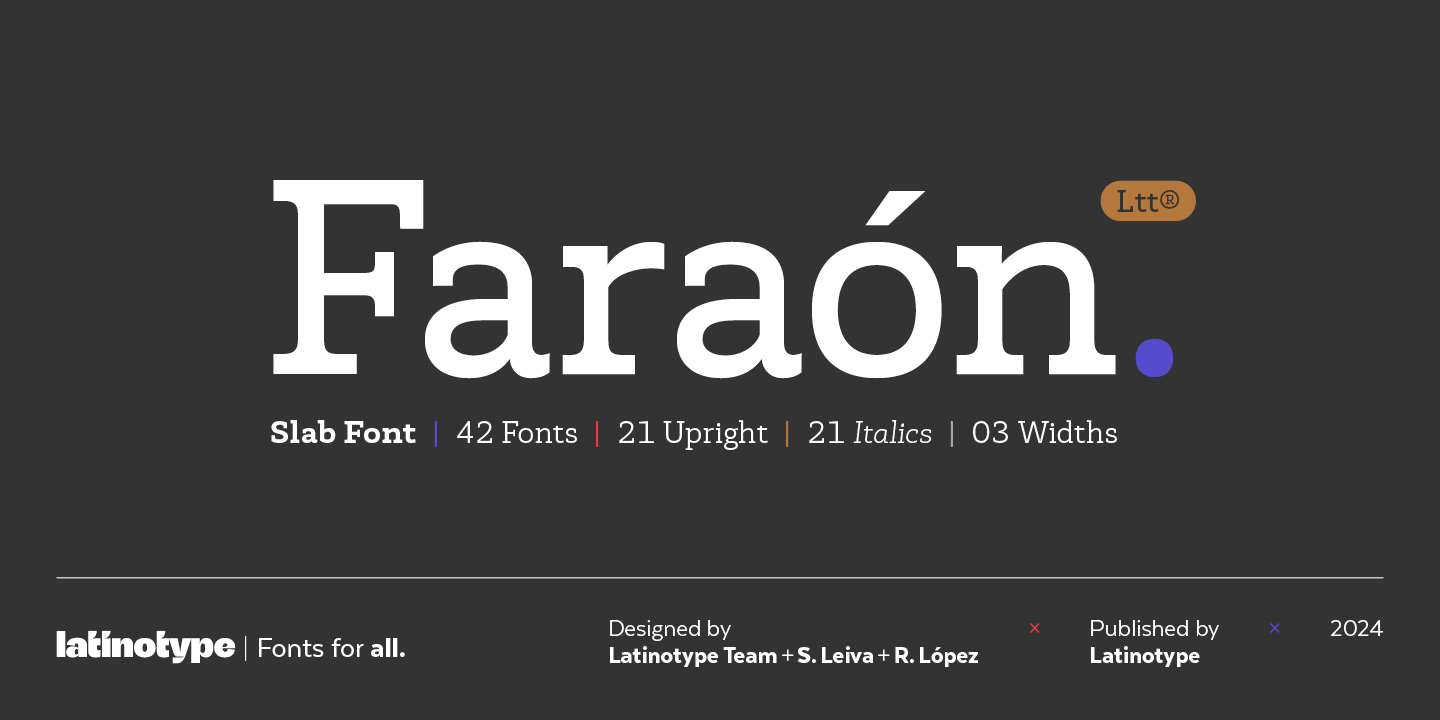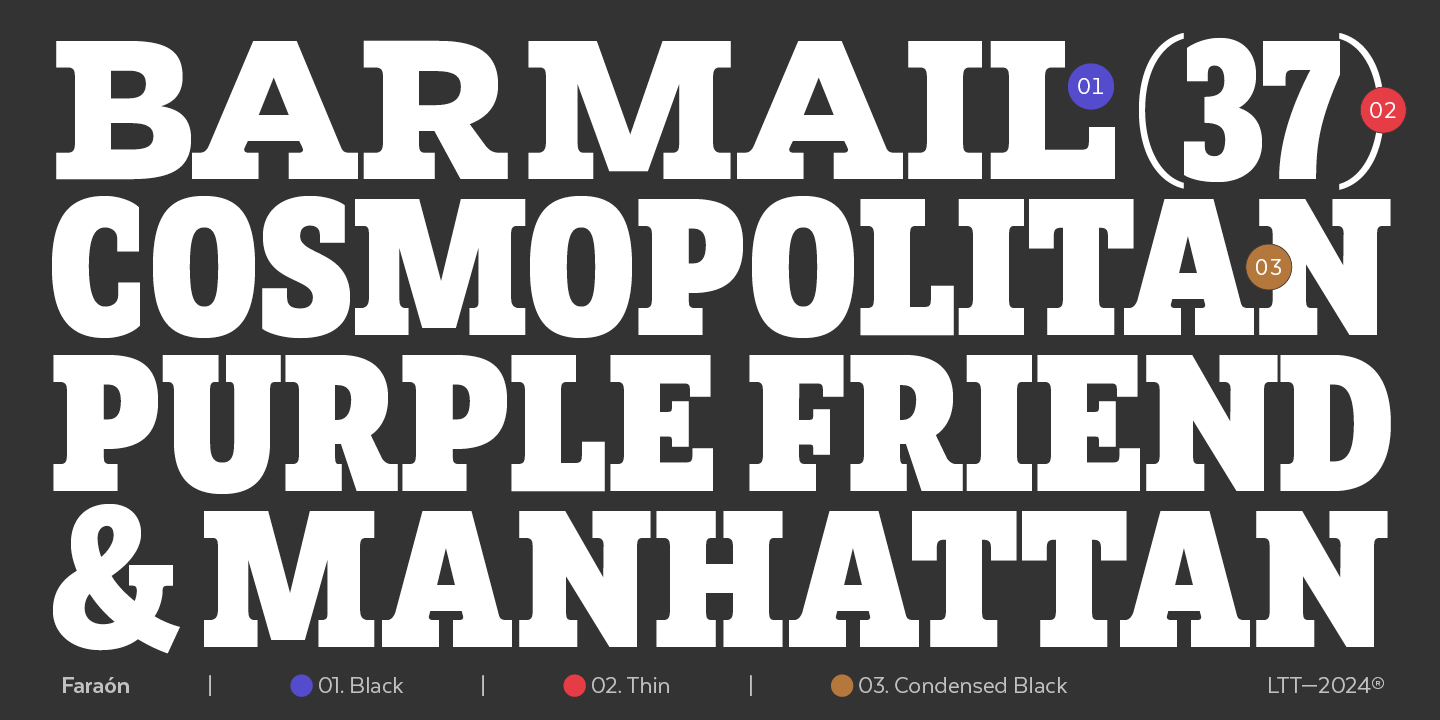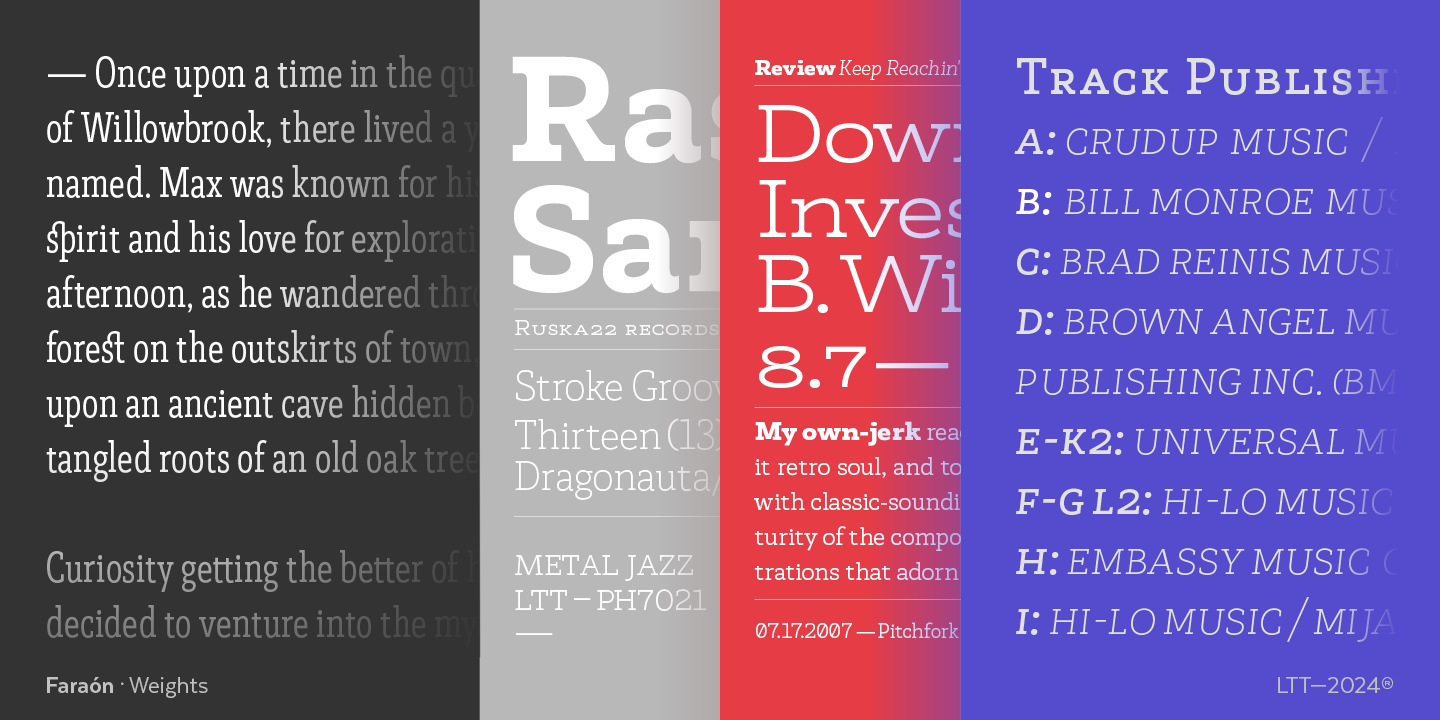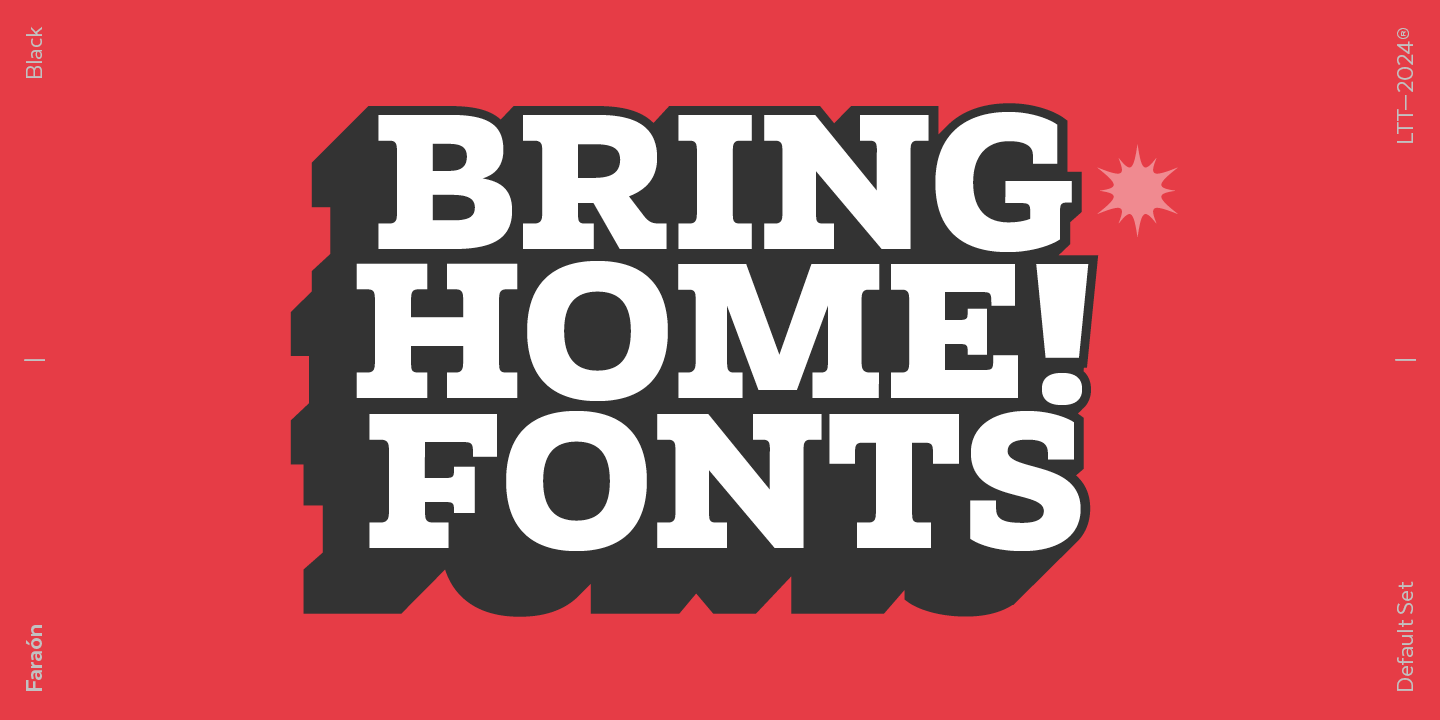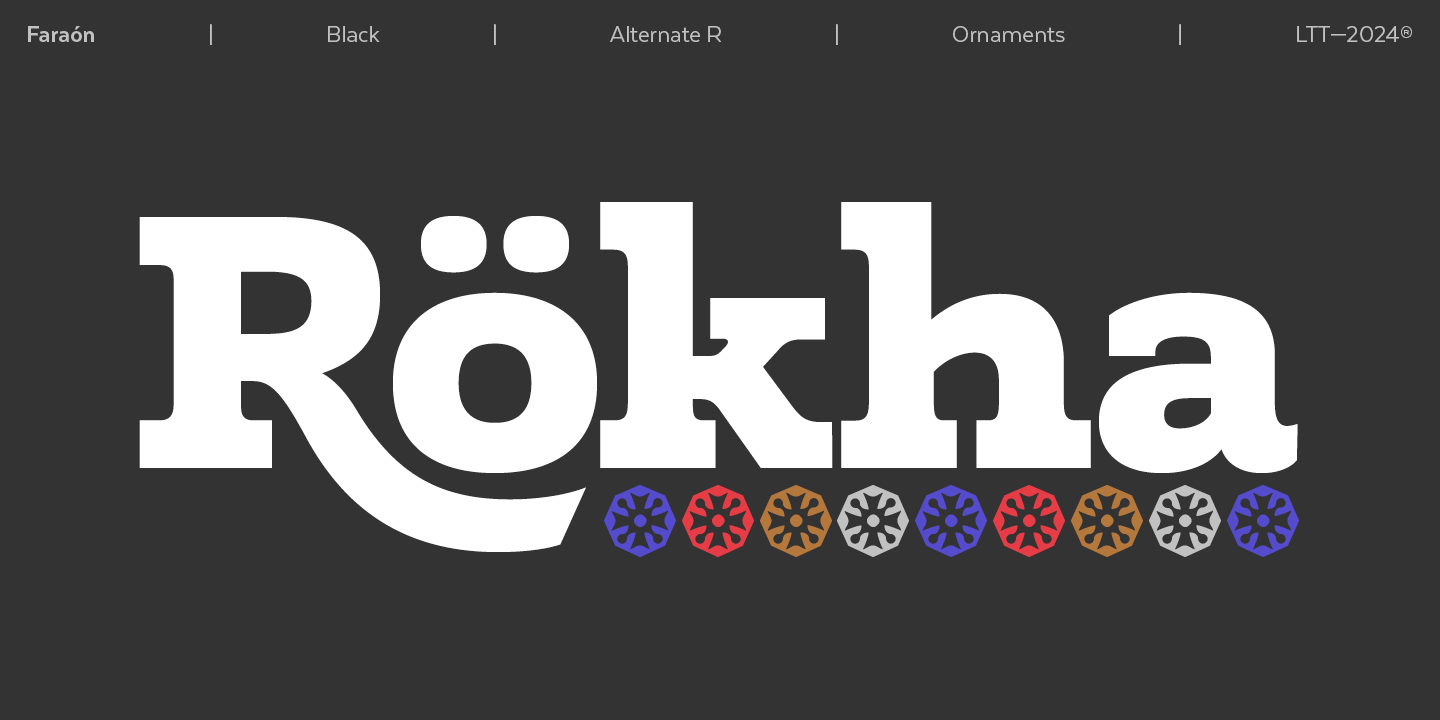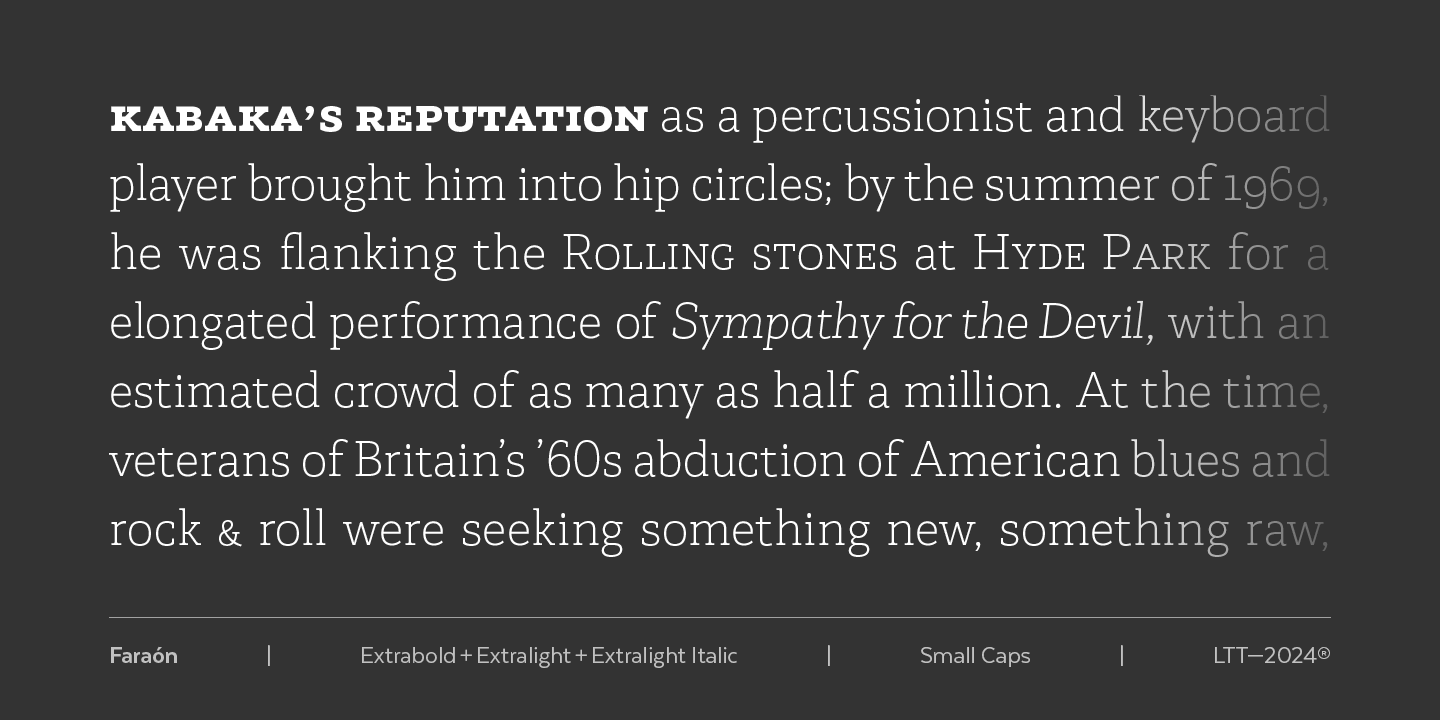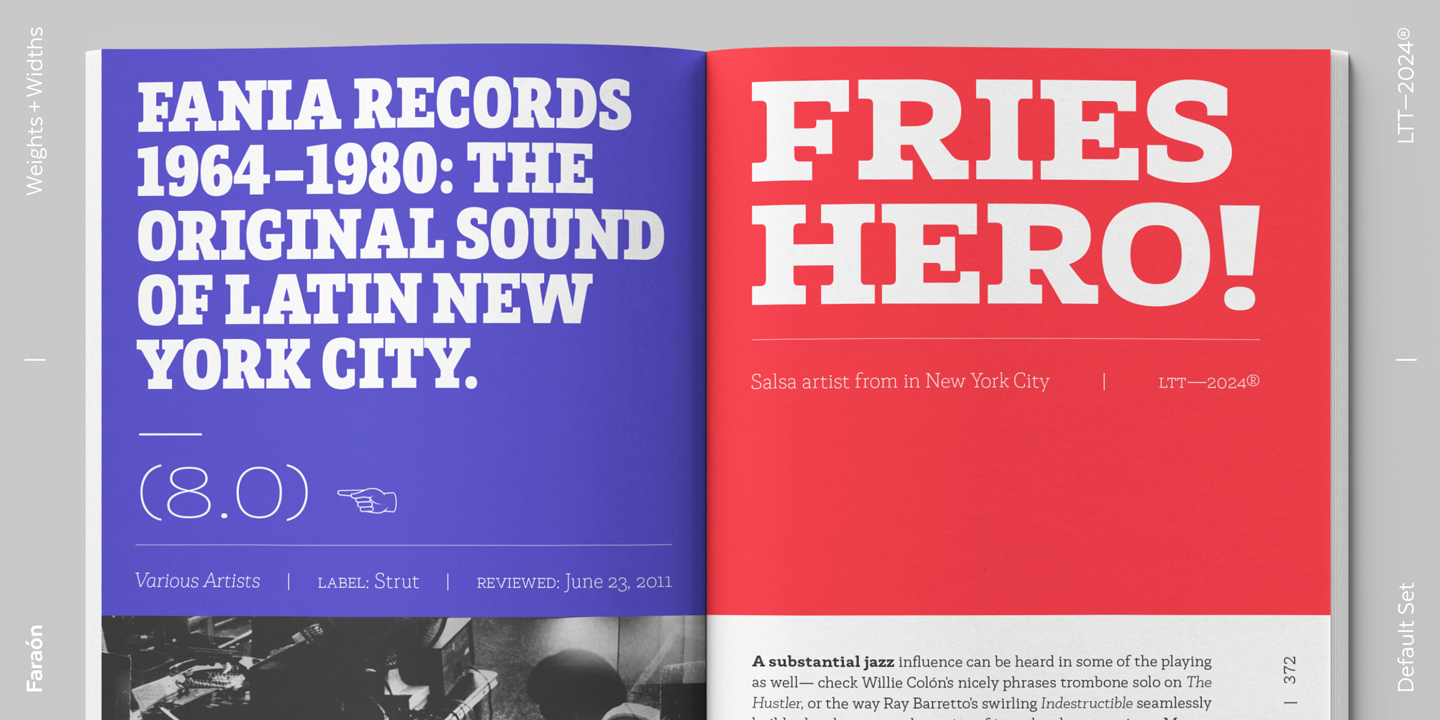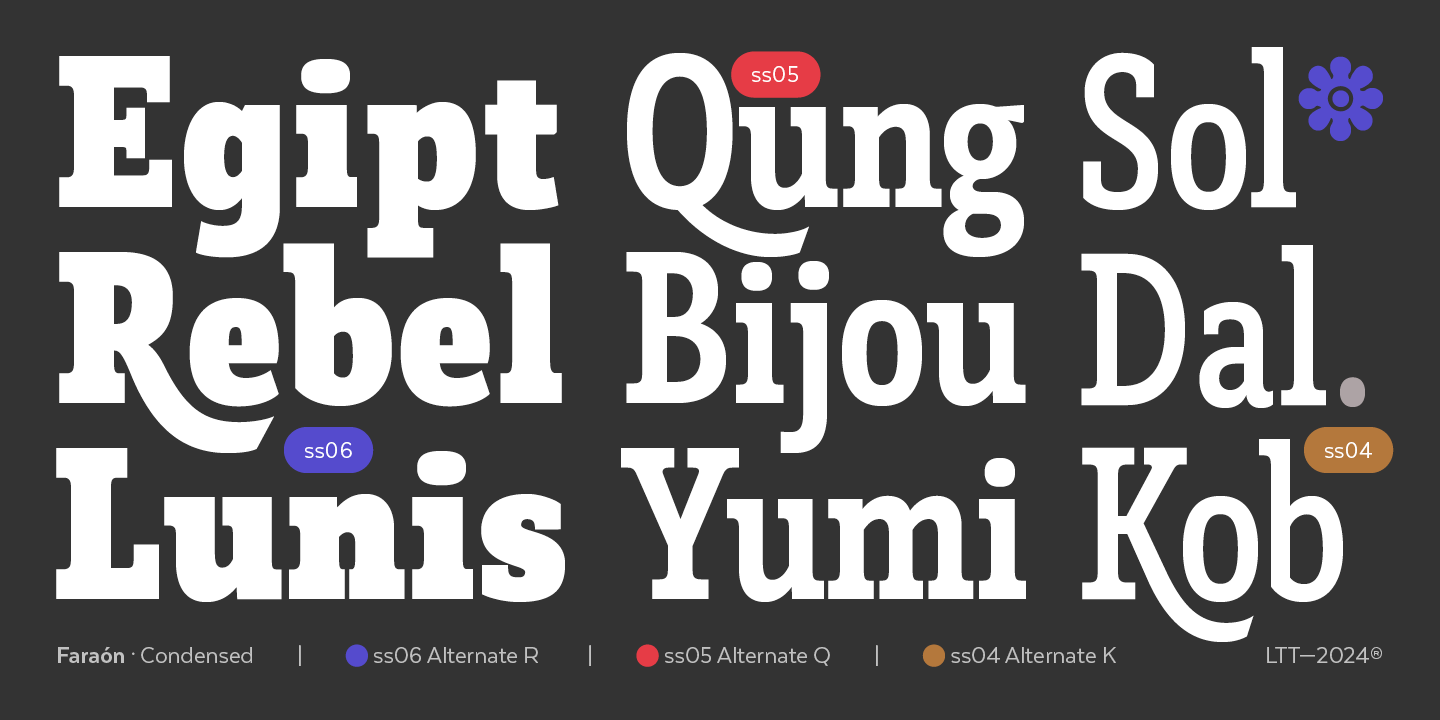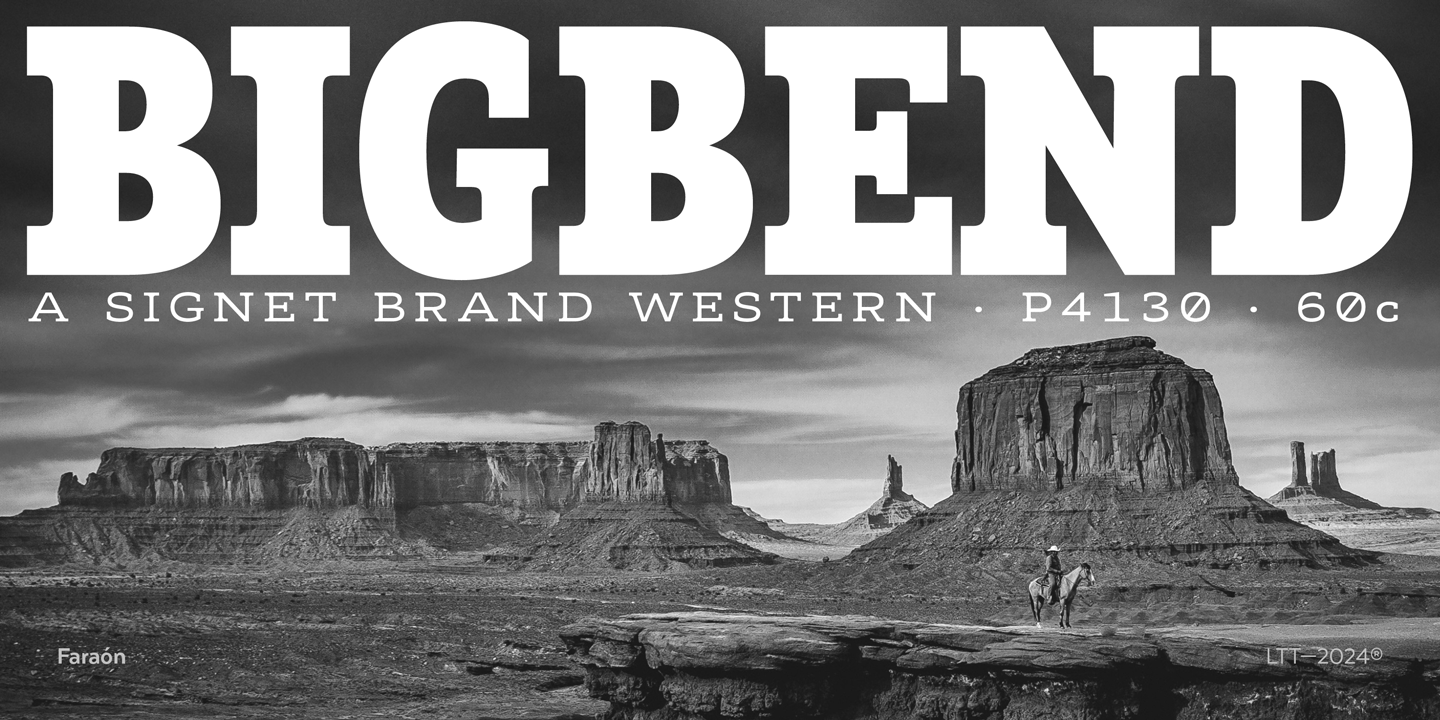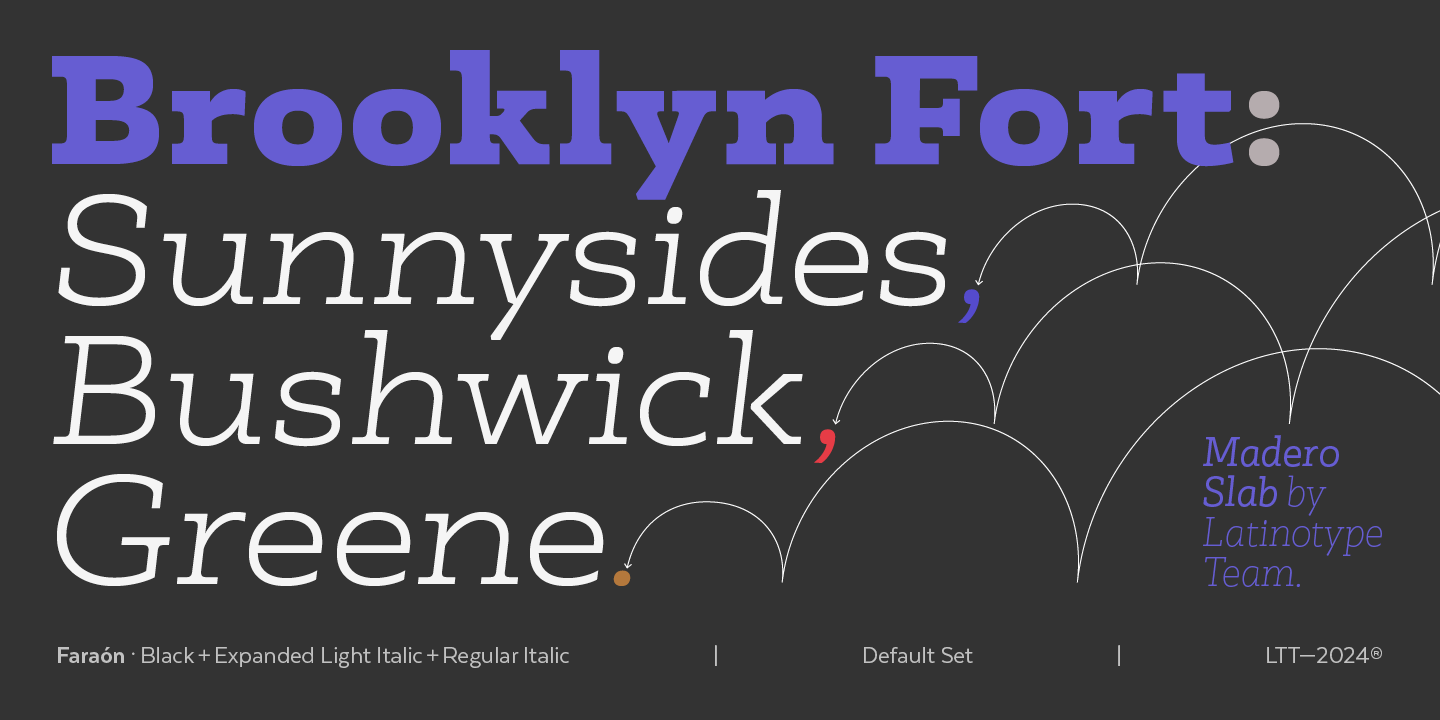
Faraón is a typeface deeply rooted in tradition, presenting a strong and kind personality. Carefully designed with 3 types of widths, facilitating the creation of dynamic and harmonious designs. With a variant system that ensures functionality and readability, and a soft and fresh style that adapts to headlines and paragraphs. Faraón is inspired by industrial fonts such as Rockwell and Memphis which versioned with the beauty of the Egyptian look, offers a contemporary and energetic touch. It is made up of 42 variants with diverse stylistic sets, ligatures, small caps and swashes, providing a unique personality in web and printed applications. The italic version is perfectly balanced to complement each variant, offering versatility in multiple editorial contexts.
Faraón is perfect for projects seeking to capture the grandeur and splendor of the pharaonic lands.